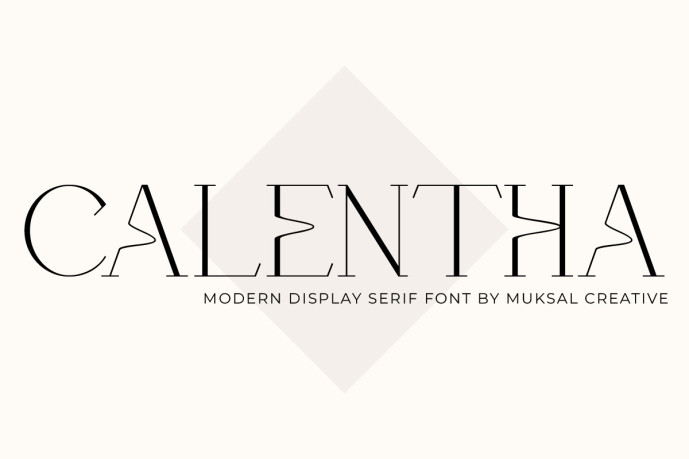
Calentha Typeface
Designer: creativemuksal
Calentha Typeface is a modern serif typeface that combines refined classic elements with contemporary clean design. Its polished letterforms and subtle details make it ideal for branding, logos, editorial headlines, packaging, and stylish digital use. With stylish curves and excellent readability, this font brings sophistication and clarity to any visual project. The font includes uppercase & lowercase letters, numerals & punctuation, and extended Latin support — offering the versatility you need across print and web formats.